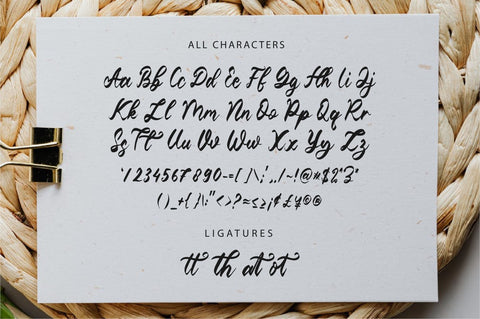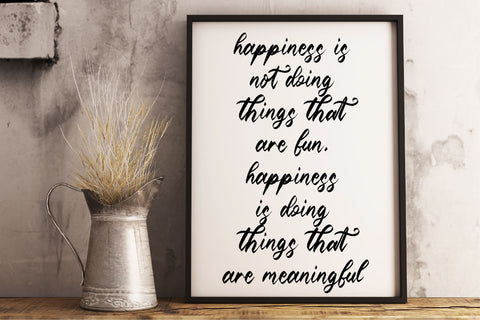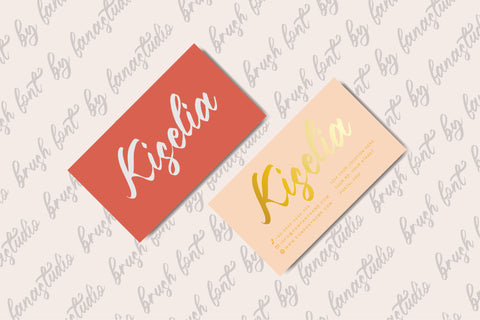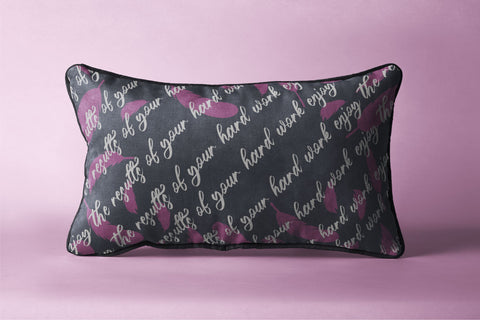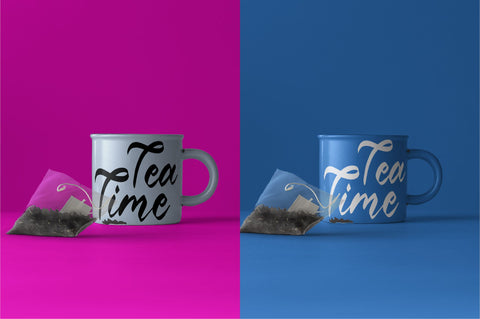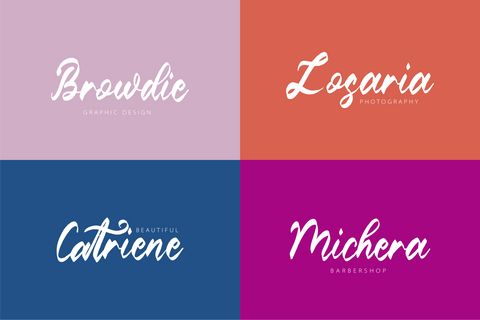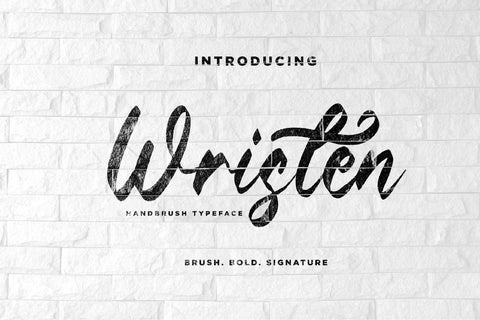
Wristen - Brush Font
Wristen is a supercharged, street-wise brush font bursting with energy. With extra attention to quick strokes and sharp details, Wristen is guaranteed to deliver an unapologetically loud & fast-paced message; ideal for logos, apparel, quotes, product packaging, or anything which needs a typographic turbo-boost.
Ligatures